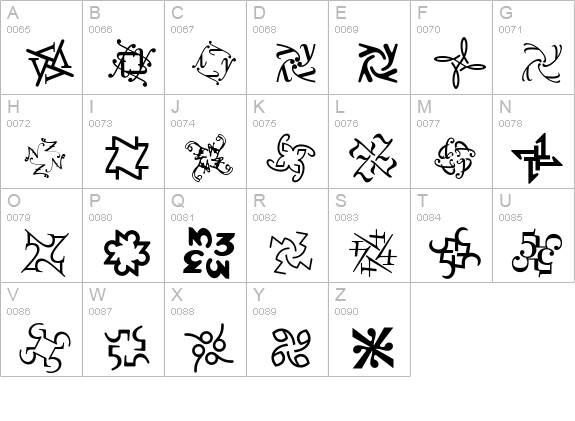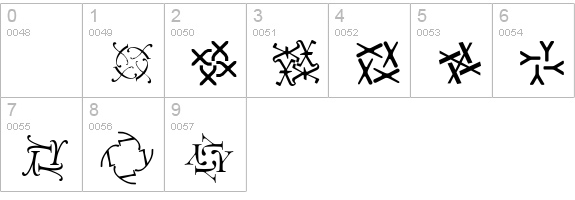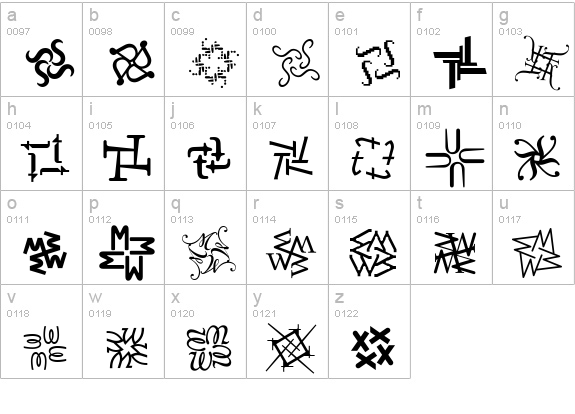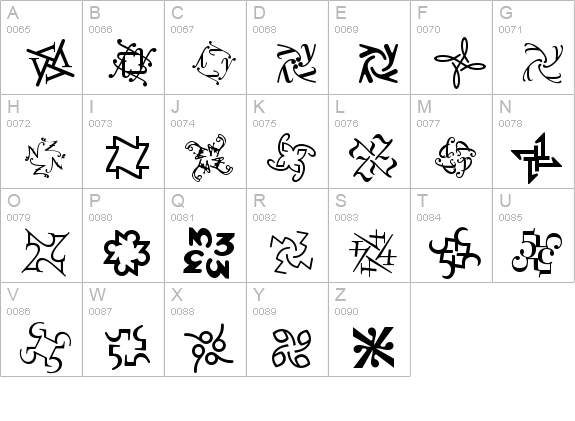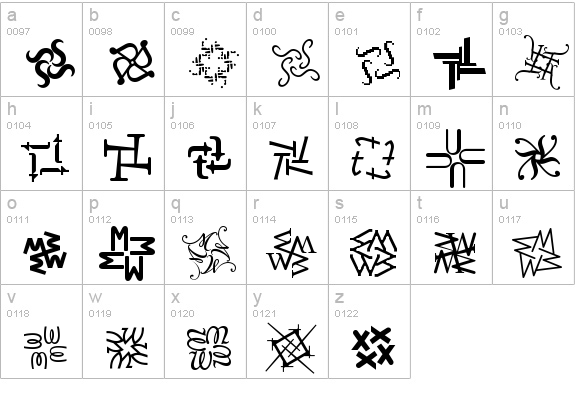
HypnopaediaTwo font is a mesmerizing and versatile typeface that will captivate your audience with its elegant and modern design. This font is perfect for a wide range of design projects, from branding to editorial design. With its sleek lines and sophisticated appeal, HypnopaediaTwo font adds a touch of sophistication to any project. The best part? HypnopaediaTwo font is available for free download at FontsMarket.com. This means you can easily access this stunning font and enhance your designs without breaking the bank. Whether you are a professional designer or a hobbyist, HypnopaediaTwo font is a must-have in your font collection. Download it today and elevate your design projects with this beautiful typeface.